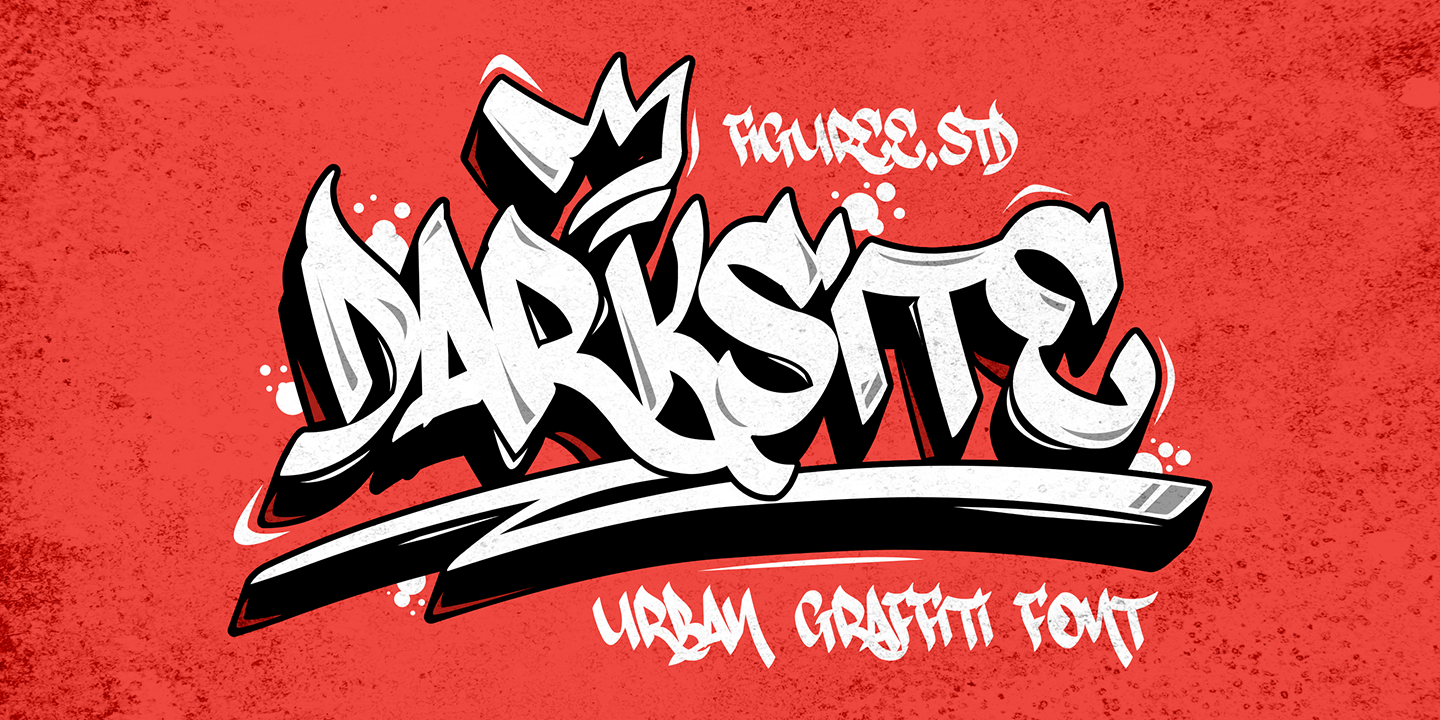
Unleash a bold, moody aesthetic with Darksite Font Free Download. This edgy display typeface features sharp angles, heavy strokes, and a dark, futuristic vibe—making it perfect for horror themes, metal band logos, streetwear branding, gaming visuals, and high-impact posters. Darksite Font Free Download brings intensity and drama to your designs, ensuring they command attention.
The powerful structure of Darksite Font makes it ideal for headlines, titles, and branding that needs to convey strength, mystery, or rebellion. Whether you're designing digital artwork, promotional materials, or immersive event graphics, this font provides the visual punch and grit your project demands.